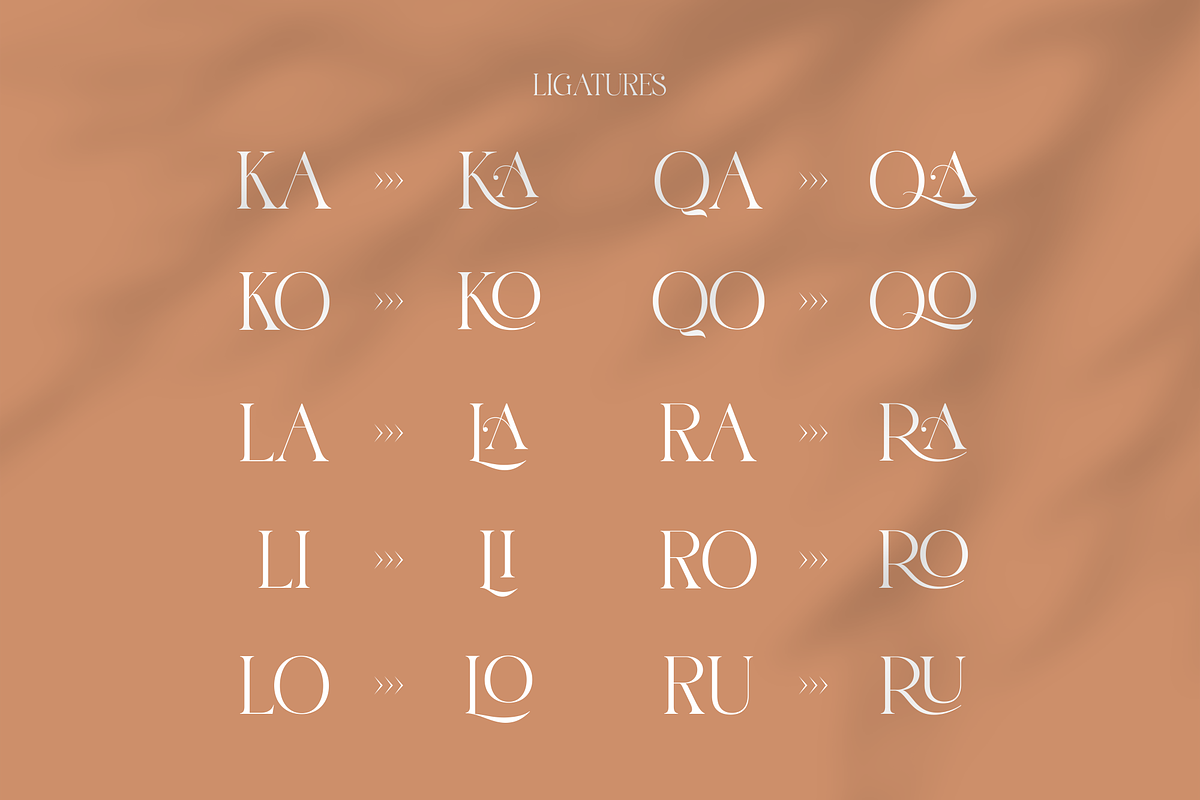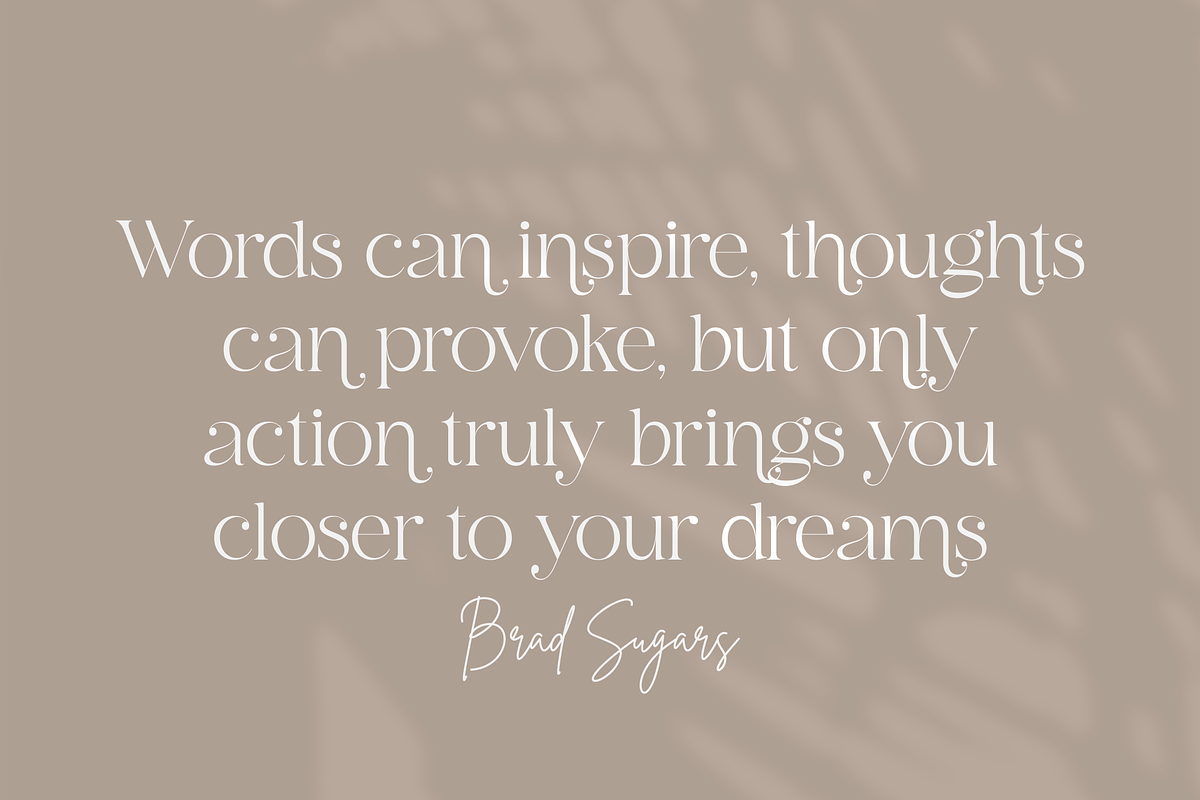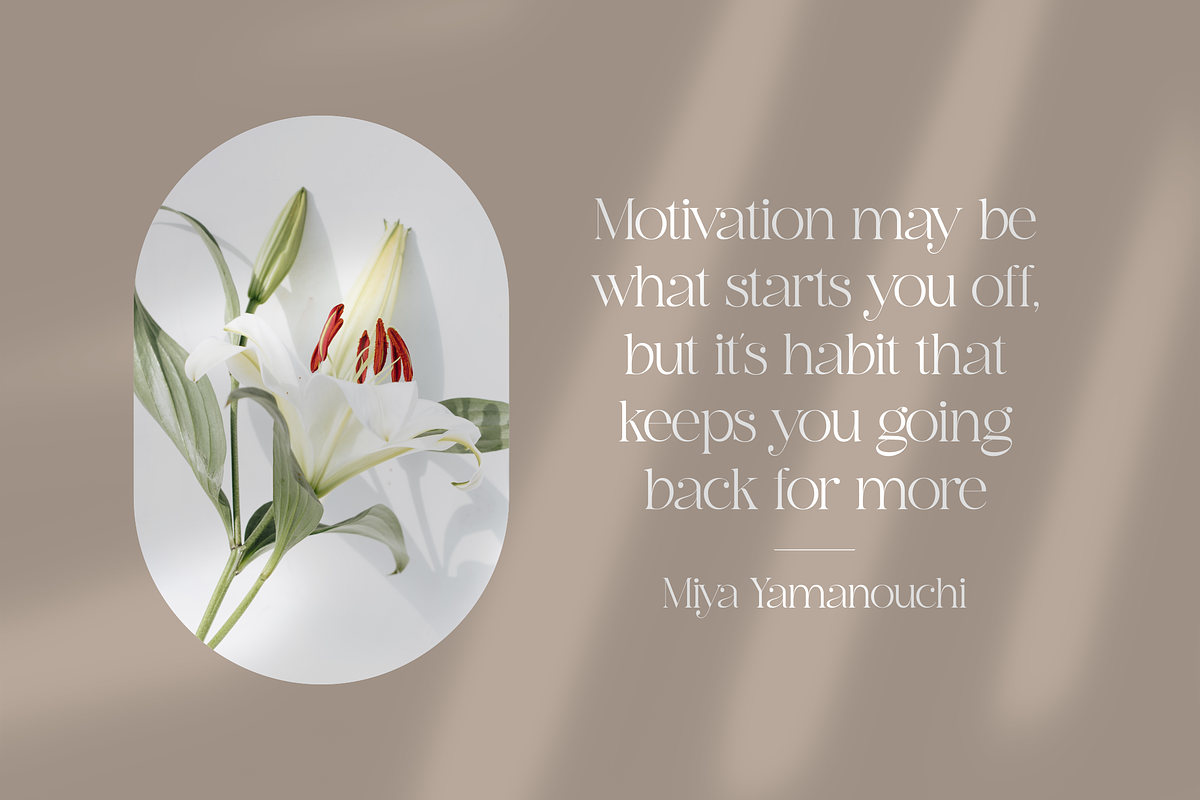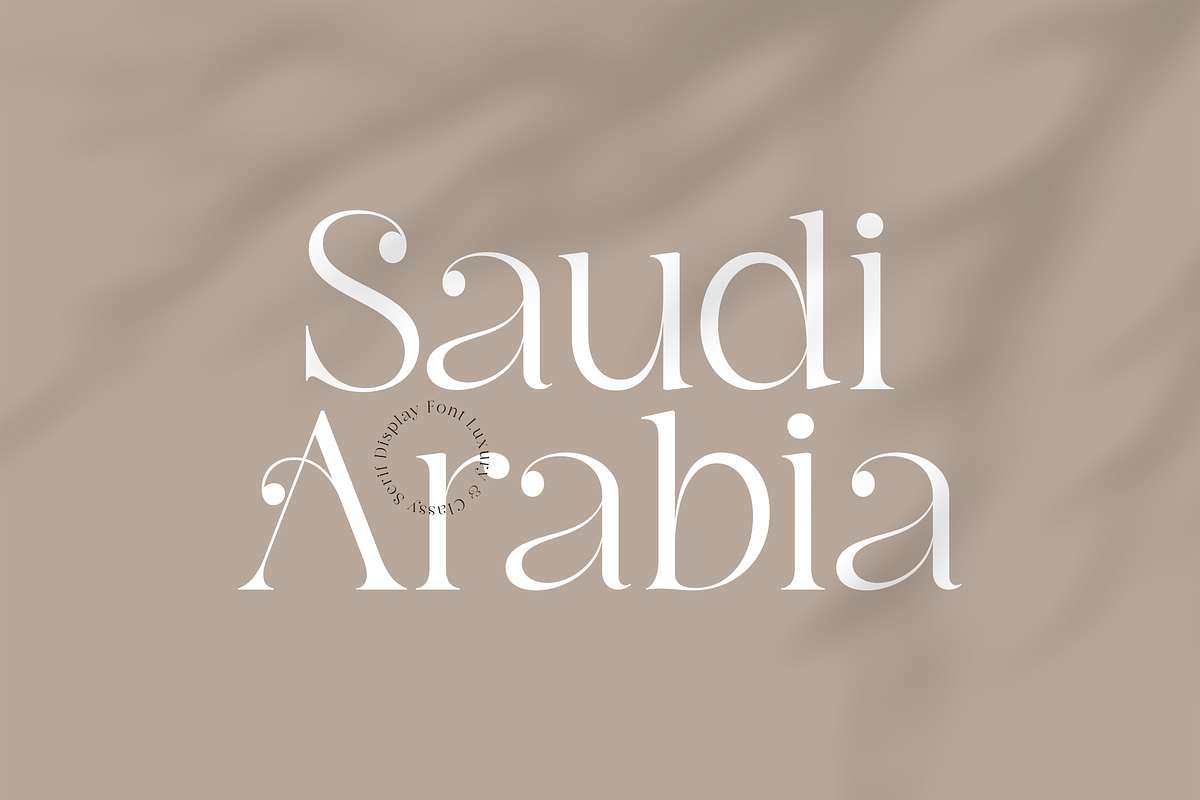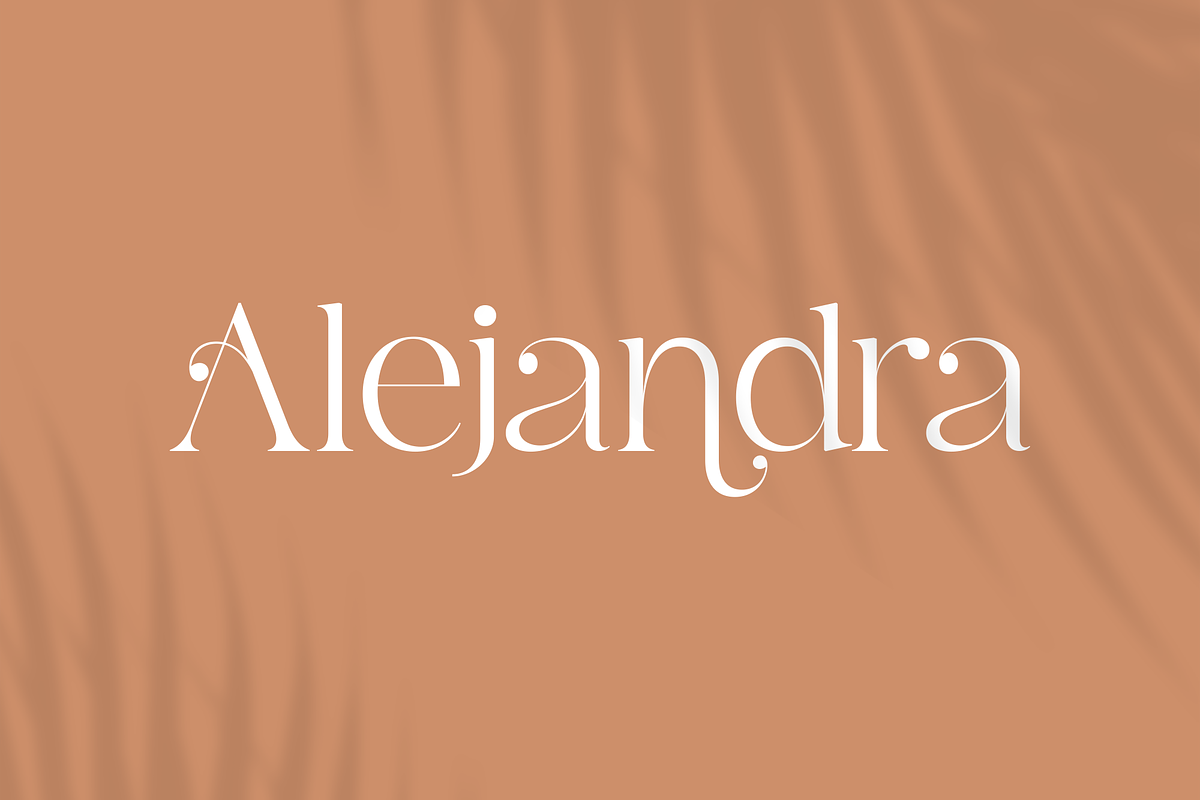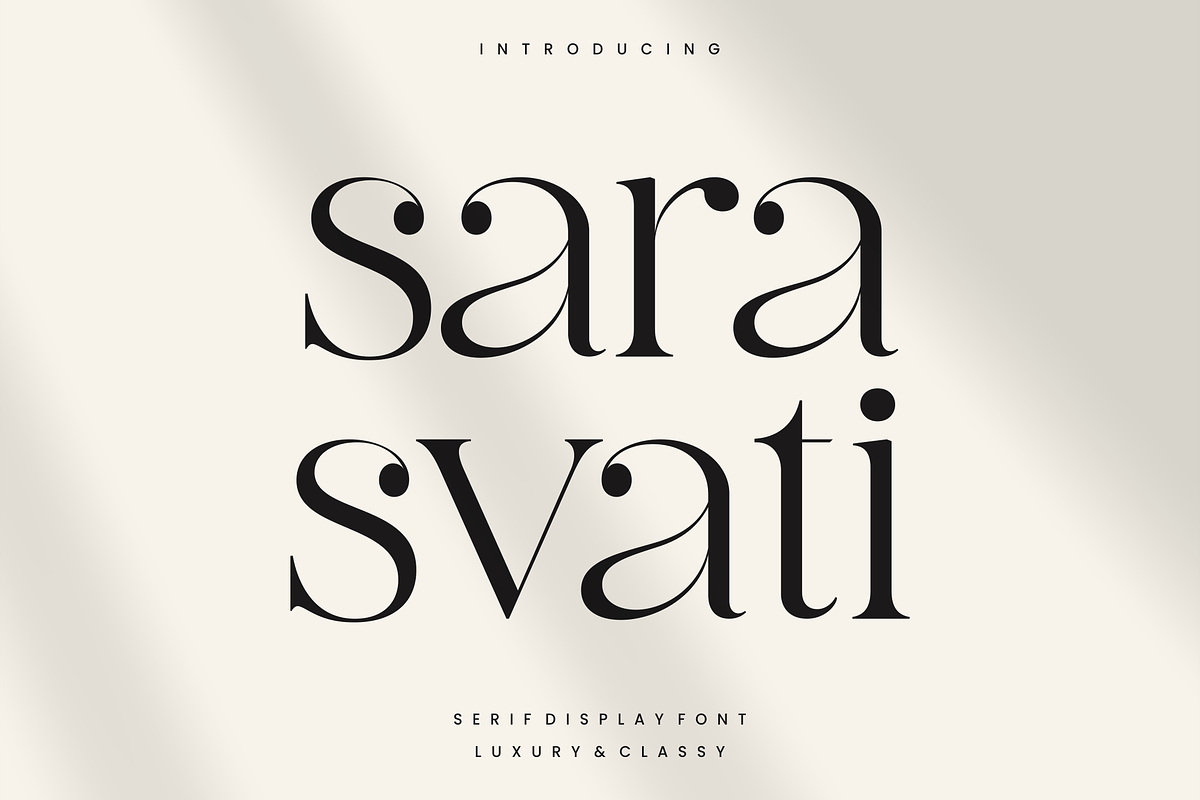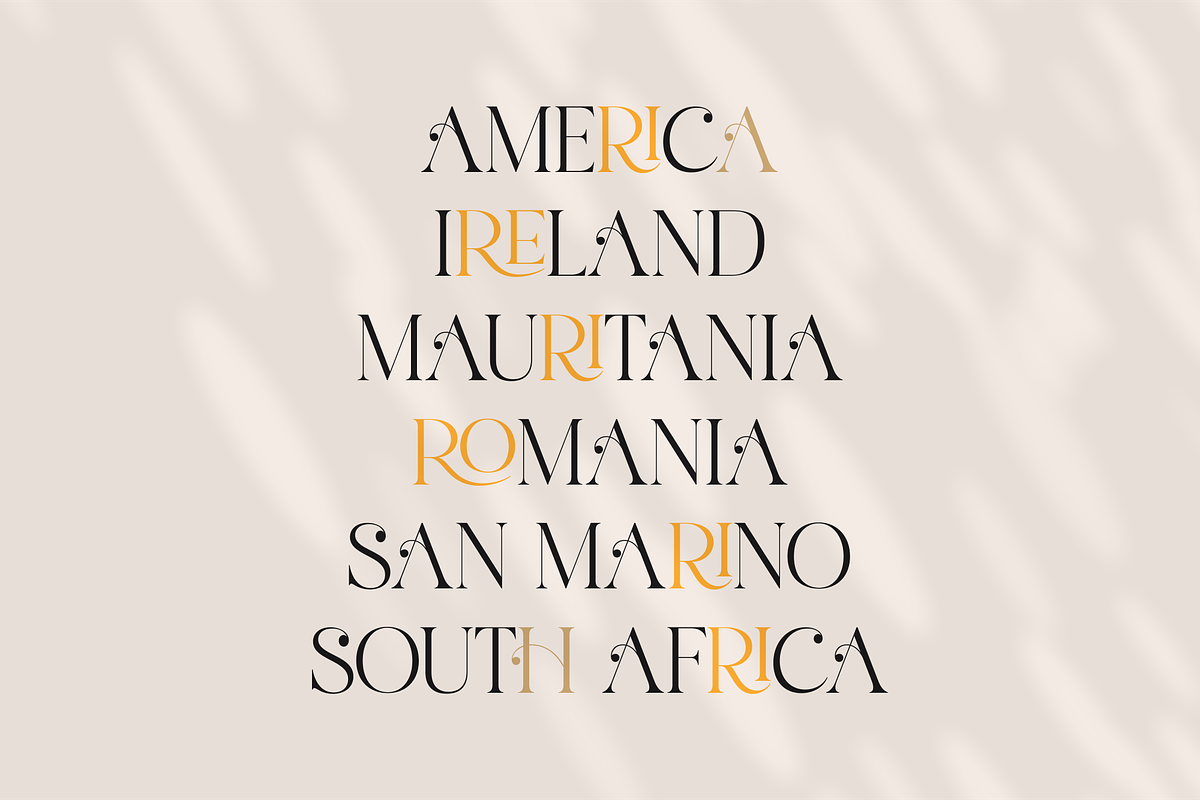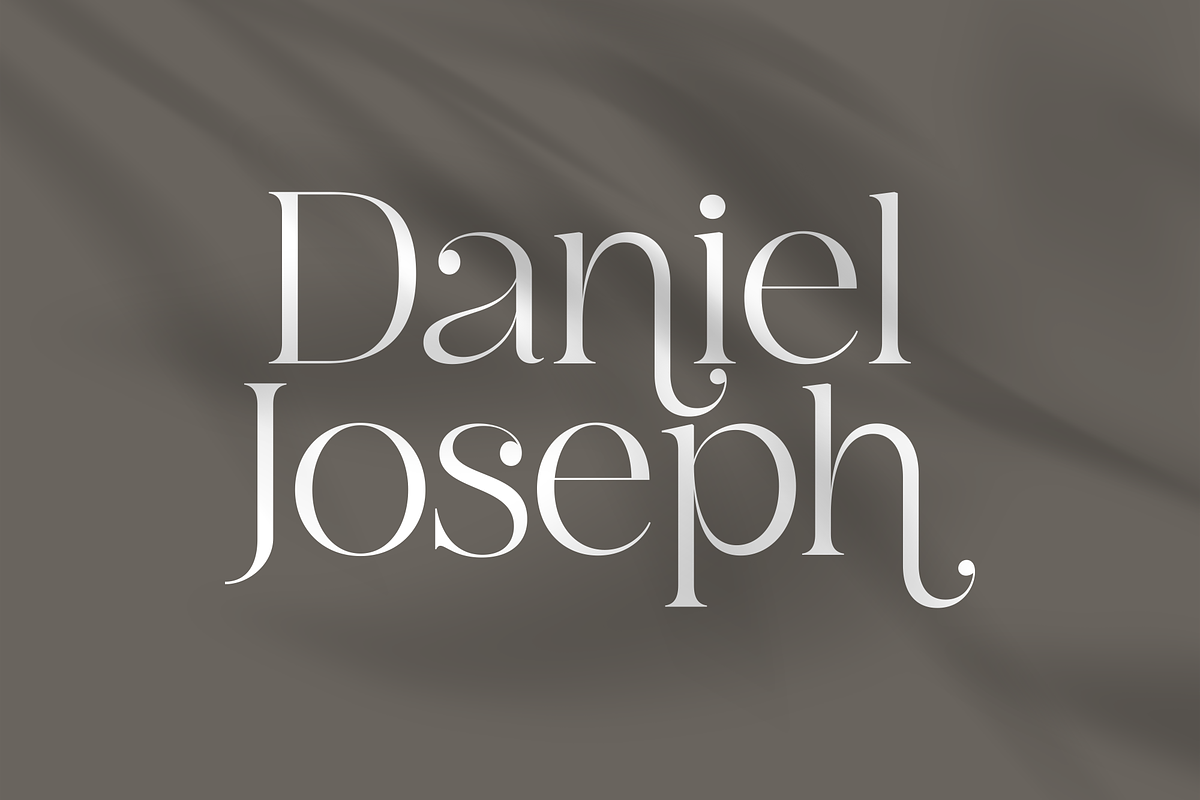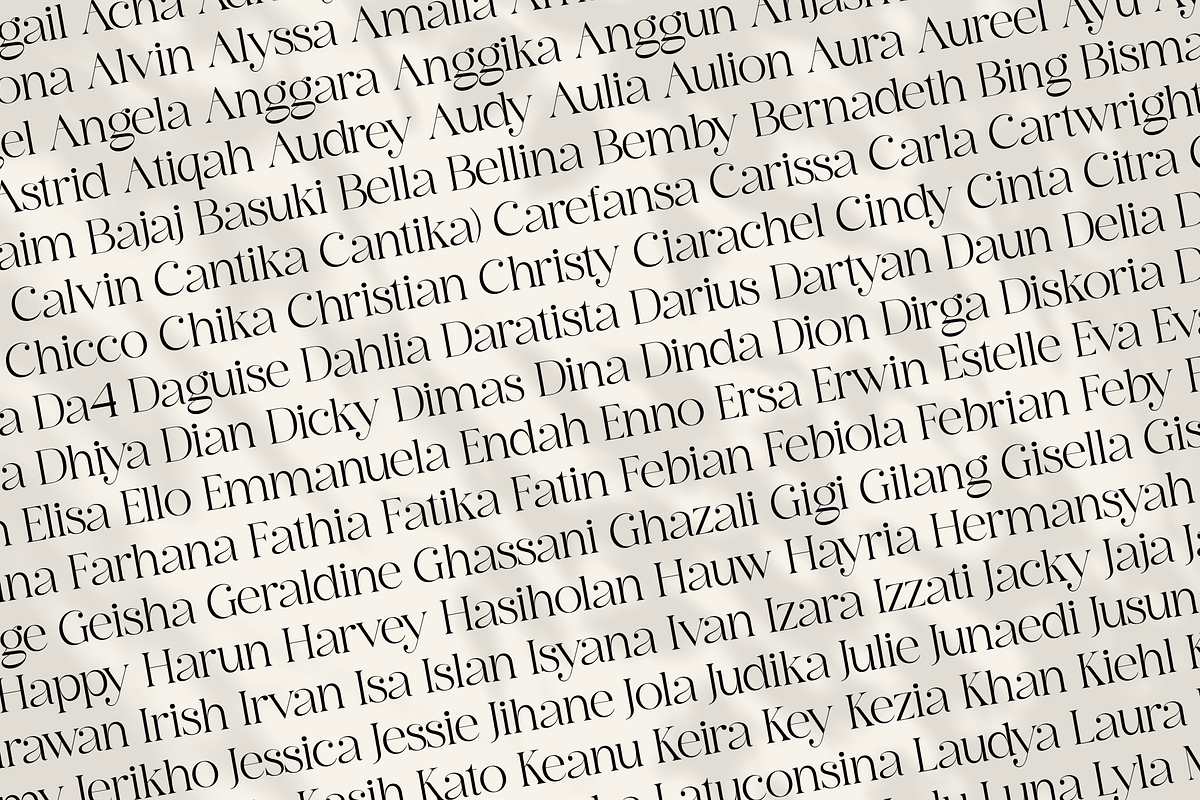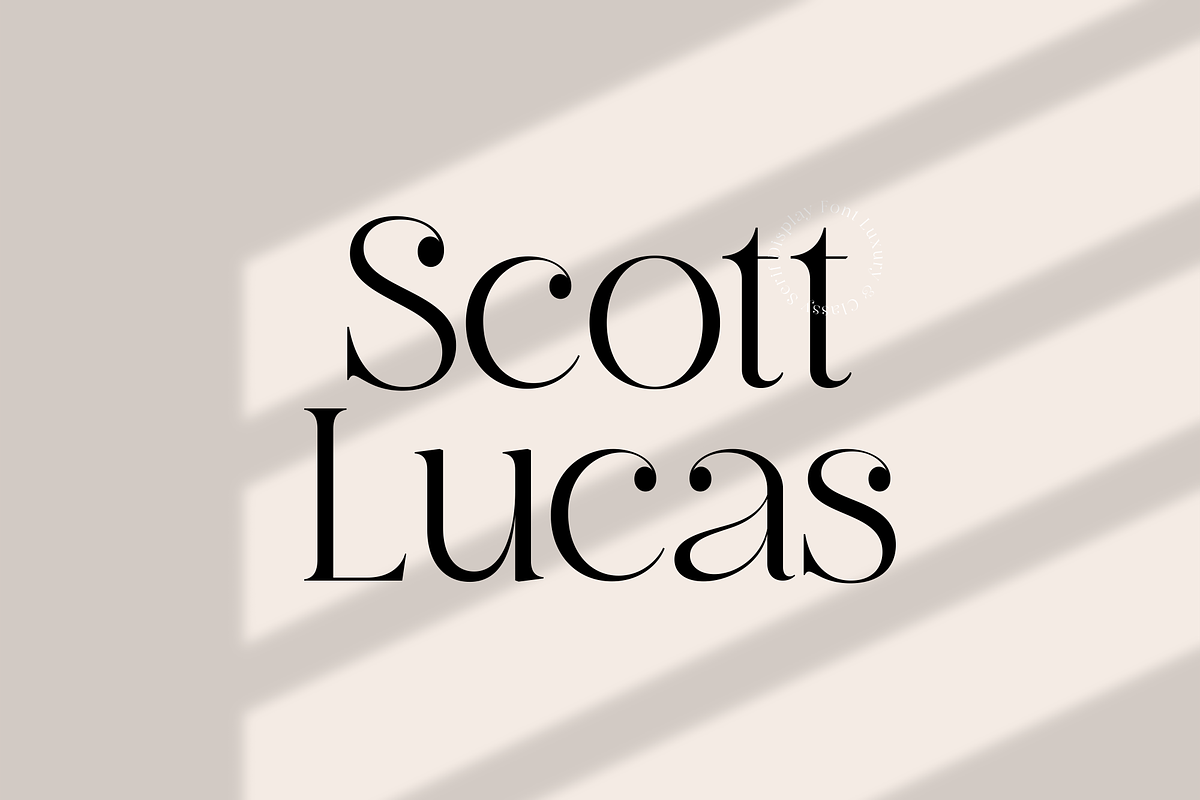
Sarasvati - Serif Display Font
Sarasvati is classy display serif font with 270+ characters. Includes uppercase, lowercase characters, multilingual, alternates and most common other characters.
Sarasvati is perfect for logos, social media posts, product packaging, product designs, and other projects.